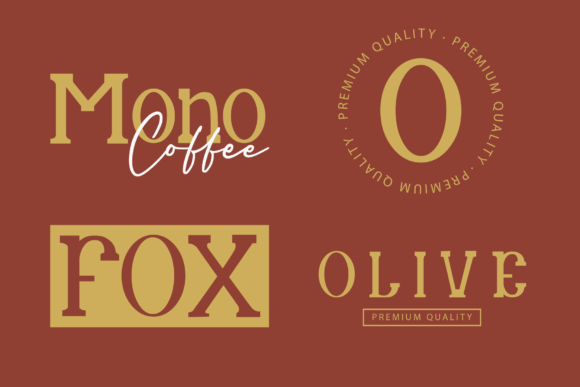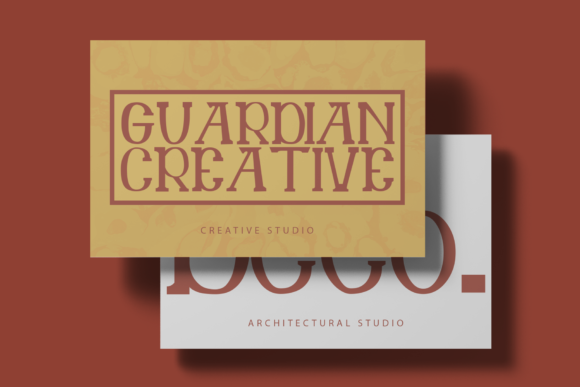
Guard: A Modern and Playful Slab Serif Font
Guard is a distinctive slab serif font that combines modernity with playfulness. Designed by Kong Font Studio, this versatile typeface is perfect for a variety of creative projects, from branding to sports designs.
Key Features of Guard
- Modern Design: Offers a contemporary look that aligns with current design trends.
- Playful Aesthetic: Brings a lively and engaging feel to designs, suitable for fun and dynamic projects.
- Slab Serif Structure: Incorporates the characteristic thick, rectangular serifs typical of slab serif fonts.
- Versatile Application: Suitable for logos, t-shirt printing, sport designs, and more.
- Wide Range of Contexts: Designed to look outstanding in various settings and applications.
Ideal Uses for Guard
Guard’s unique characteristics make it particularly well-suited for:
- Branding and logo design
- T-shirt and apparel designs
- Sports-related graphics and merchandise
- Creative posters and advertisements
- Social media graphics and content
- Fun and dynamic headlines or titles
When incorporating Guard into your designs, consider these tips:
- Use for headlines or short blocks of text to showcase its modern and playful style
- Experiment with different sizes to highlight the font’s unique characteristics
- Consider pairing with simpler sans-serif fonts for body text to create contrast
- Utilize its playful aesthetic to add energy to your designs
Guard is an excellent choice for designers looking to add a modern and playful slab serif font to their typographic toolkit. Its ability to enhance various design projects with its lively aesthetic makes it stand out in the world of typography. Whether you’re working on logo designs, creating layouts for sports merchandise, or developing content that requires a touch of fun, Guard offers the perfect blend of style and versatility.
Furthermore, Guard’s playful style allows it to shine in various contexts. From vintage-inspired designs with a modern twist to more contemporary layouts that need a touch of playfulness, this font can elevate your projects. Its modern yet playful style works particularly well in designs that require a thoughtful and engaging mood.
In conclusion, Guard is a font that truly captures the essence of modern playfulness in typography. Its ability to work well in both minimalist projects and more elaborate layouts showcases its flexibility. For those looking to add a touch of lively charm to their work, Guard can even enhance themed creations with its unique style. It’s the perfect choice for designers seeking to make a strong, stylish impact across a wide range of creative projects.